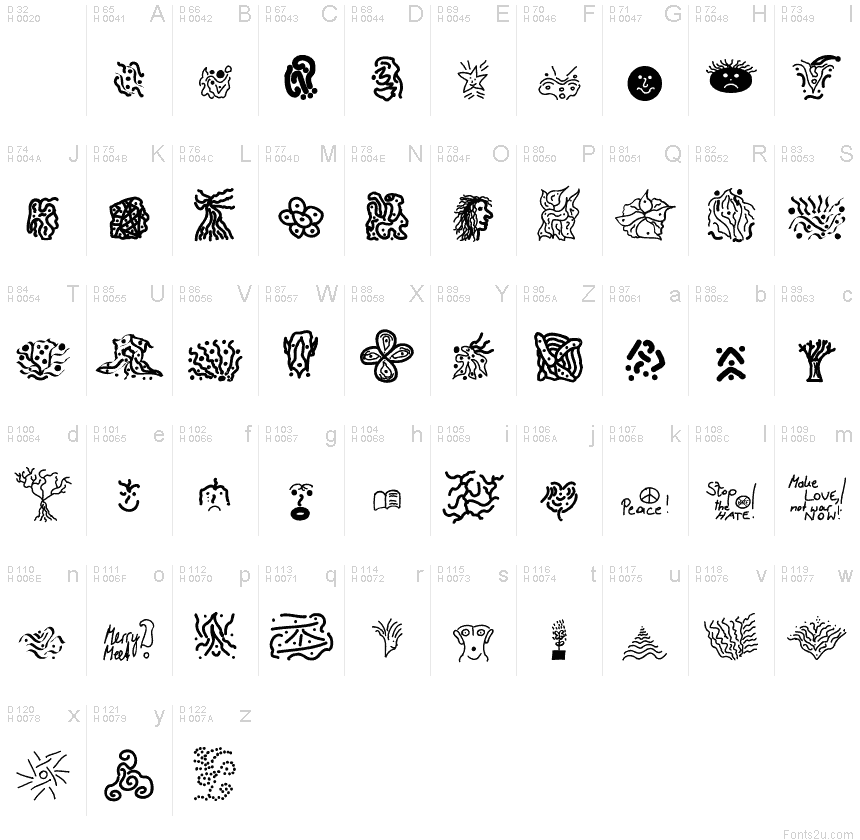
DaDoodle by Ursula Adler is a free doodle-style brush font built from broad daubs, looping outlines, and wiry handwritten strokes with lively shifts in pressure. Every form looks quickly sketched and deliberately irregular.
Designers addressing children and families can use it for activity books, classroom posters, party invitations, and playful snack packaging, all of which benefit from its homemade, humorous quality. The mixed scribbles echo marker-drawn cartoons and simple cut-paper shapes, so words can become part of an illustrated scene, mascot, or festive emblem instead of sitting apart as captions.